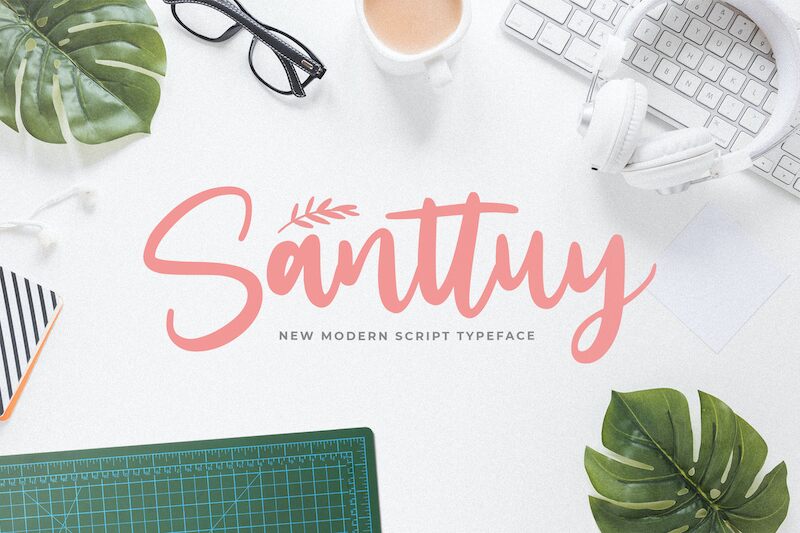
Santtuy
Santtuy, a handwritten typeface designed by Virgiawan Listanto, is perfect for adding a personal touch to your projects. This versatile font works great for everything from logos to stationery, cards and invitations to postcards. It also lends itself nicely to web and app design or even book covers.